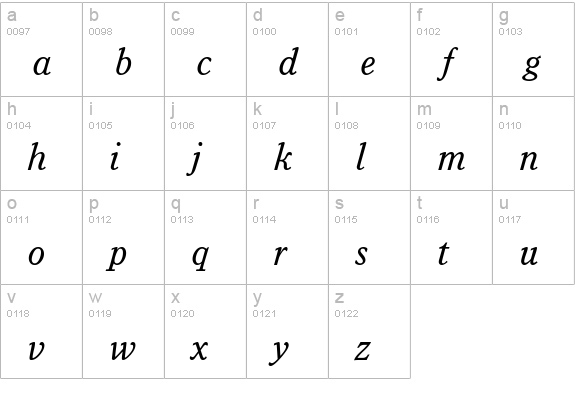
I832-Slab-Italic Font Details
I832-Slab-Italic is a distinctive, italic variant in the I832 typeface family \xE2\x80\x94 well suited to design and typography projects.
Introducing I832 Slab Italic font, a modern and elegant typeface perfect for all your design projects. With its sleek and sophisticated look, this font is ideal for adding a touch of luxury to your designs. The italic style of I832 Slab gives a unique flair and adds a sense of movement to your text. This font is not only visually appealing but also highly versatile, making it suitable for a wide range of design applications. Whether you are working on branding, packaging, editorial design, or any other creative project, I832 Slab Italic will elevate your work to the next level. The best part is that I832 Slab Italic font is completely free to download at FontsMarket.com. Now you can access this premium quality font without any cost, making it a valuable addition to your font collection. Don't miss out on this opportunity to enhance your designs with the elegance and style of I832 Slab Italic font. Download it today and start creating stunning visuals with ease.